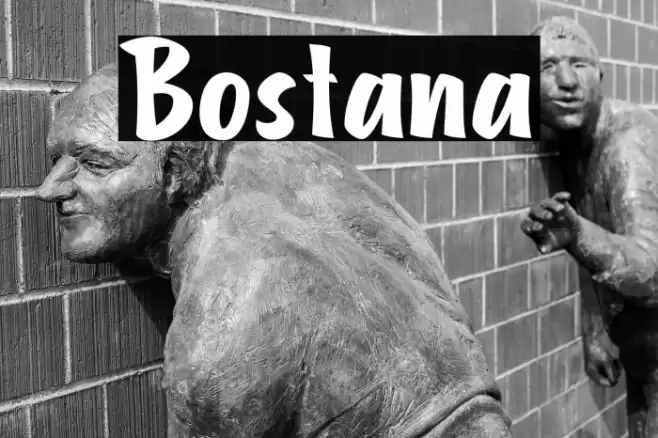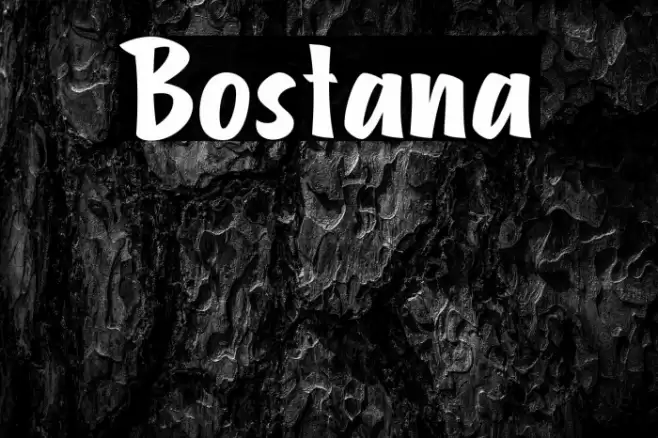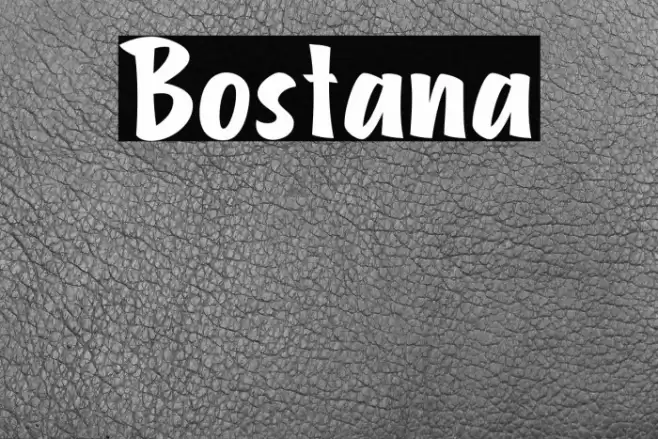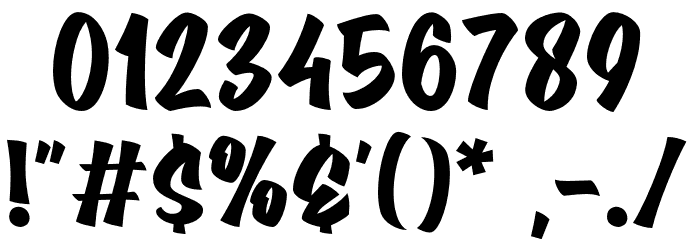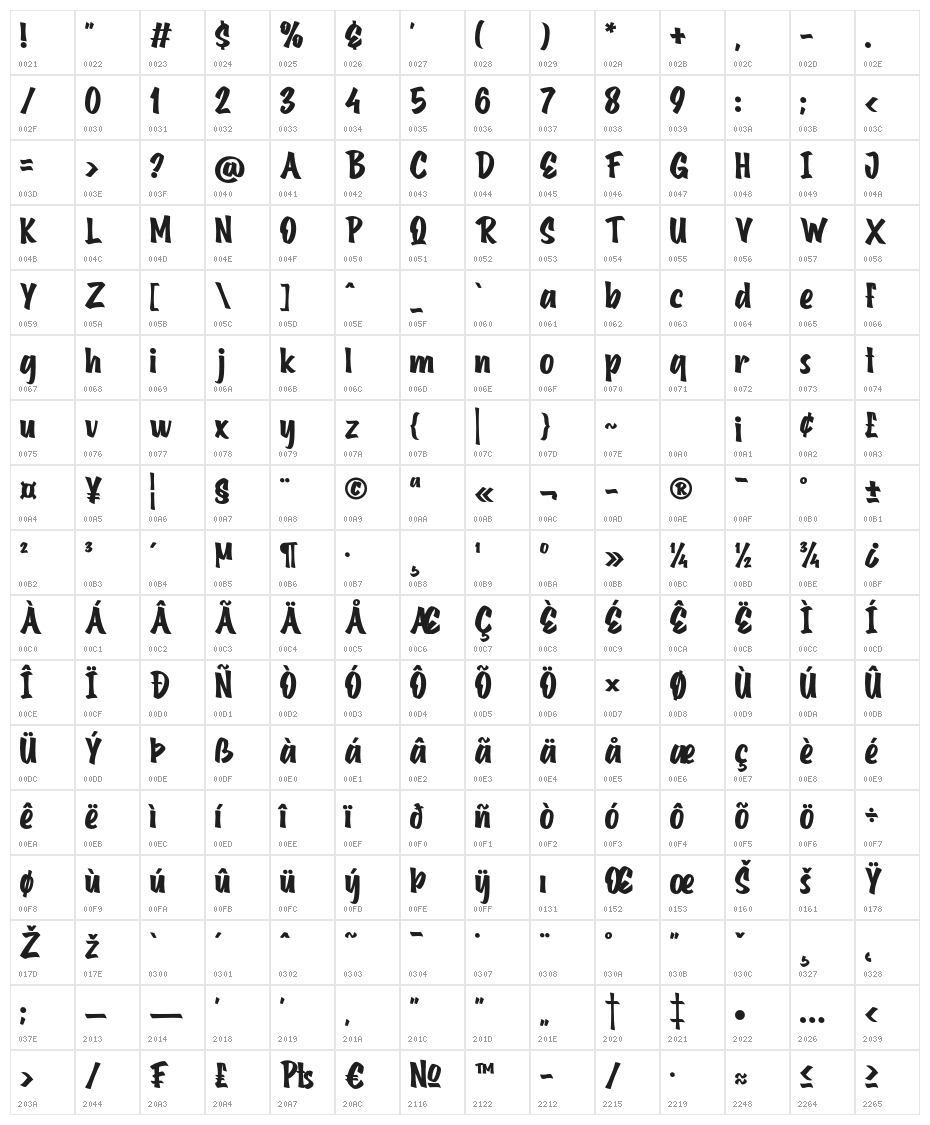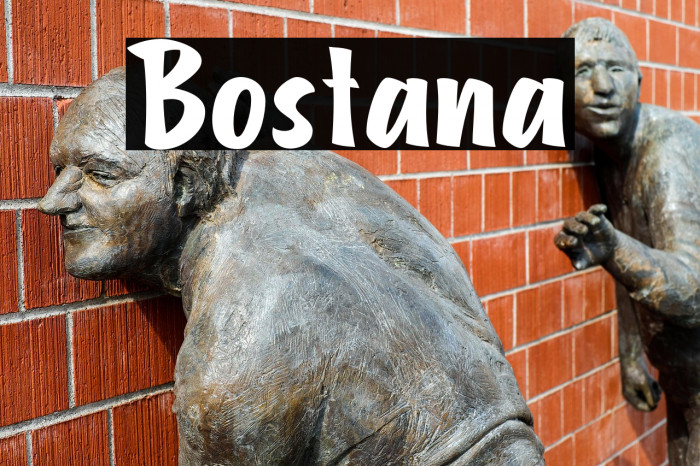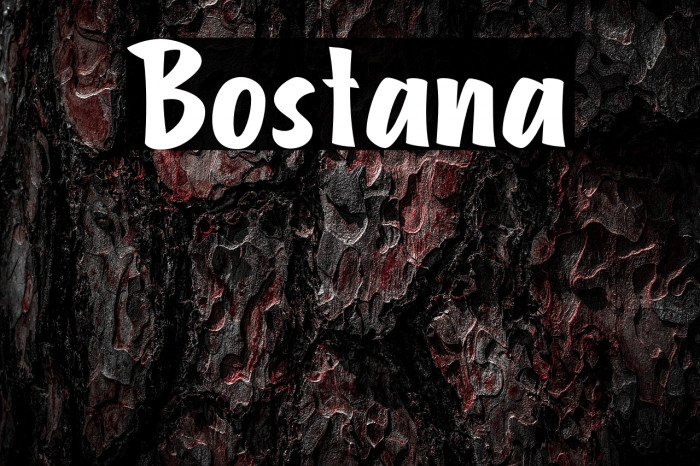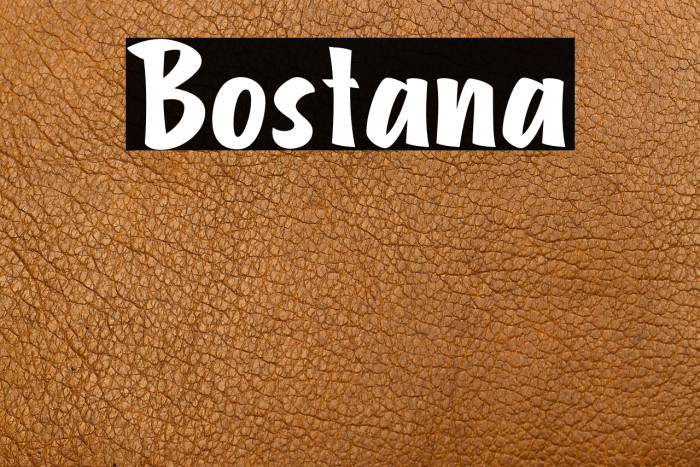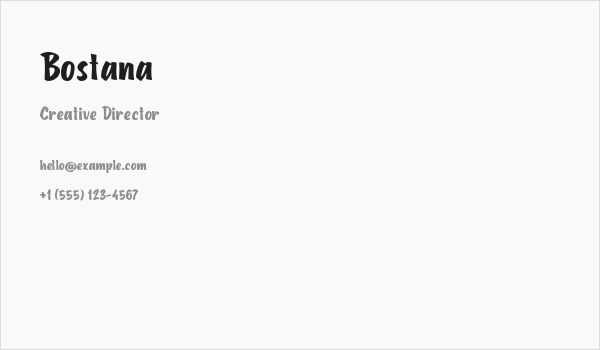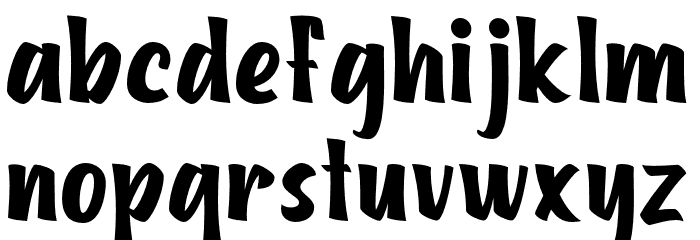
Bostana Font
Bostana Description
This font features a bold and playful style with a hand-drawn appearance. The letters are slightly irregular, giving it a whimsical and casual feel. The uppercase characters are robust and dynamic, while the lowercase letters maintain a consistent flow. Numbers and special characters follow the same lively design, making the font versatile for various creative projects. The overall look is energetic and eye-catching, suitable for designs that require a touch of fun and personality.
A bold, playful font with a hand-drawn, whimsical style from Regular fonts.
- Proposed Projects: Ideal for children's books, playful branding, posters, and creative invitations.
- Overall Style: Playful, Casual
- Use Case: Headlines, Posters, Branding